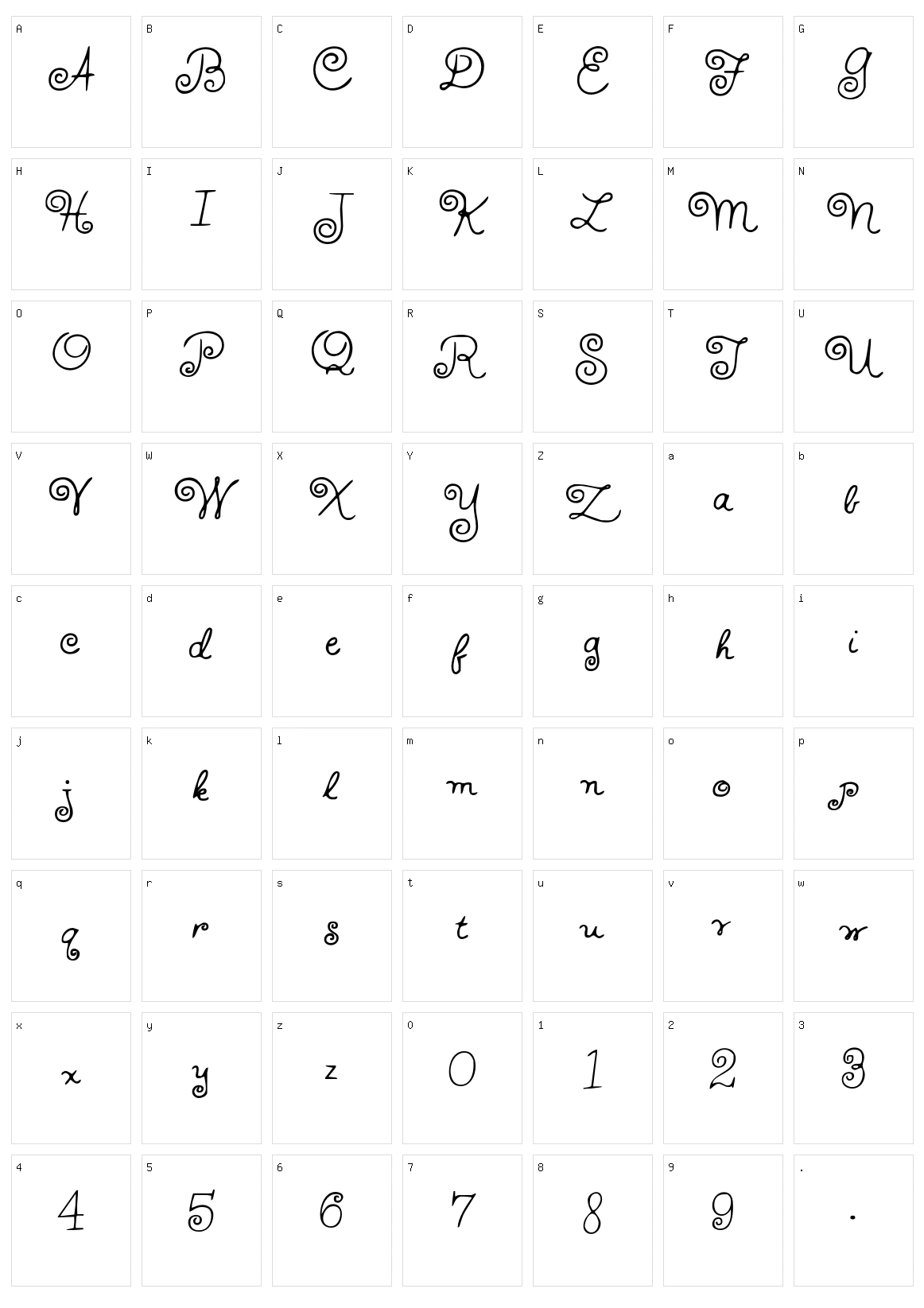
The free font HFF Whirly Whorl is carefully designed by Have Fun with Fonts, showcasing a thoughtful balance of creativity and usability and falls under the Script font style. When you download the ZIP file, it contains only 49.33 KB of font files, making it lightweight and quick to download. Please review the license details below to understand permitted usage and distribution rights. If license information is not available, we recommend using this font for personal projects only or contacting the author directly for commercial usage permissions.
HFF Whirly Whorl